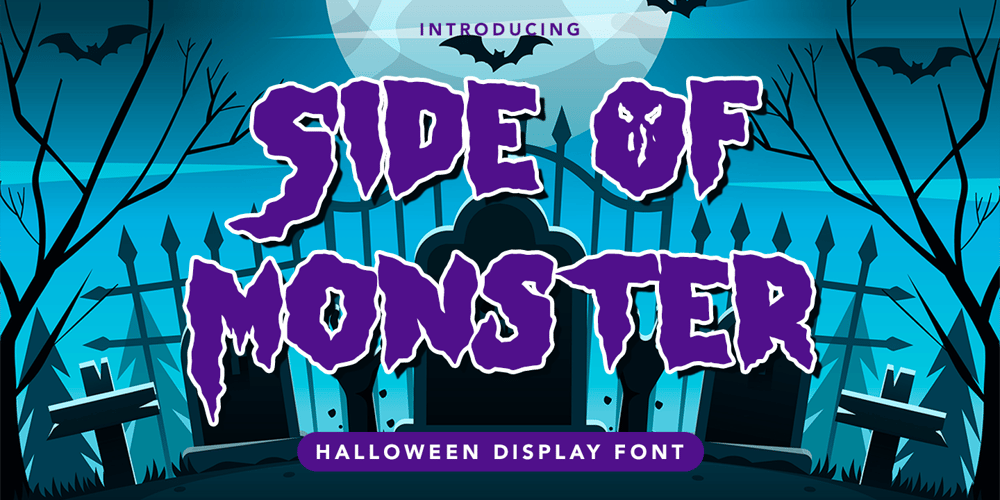
Side Of Monster
Side Of Monster font
Side Of Monster Font Family was designed by Asep Rendi and published by Hatftype. Side Of Monster contains 1 styles and family package options. Side Of Monster – Halloween Display Font is a display font that is inspired by gothic and horror style because its shape is very unique and is perfect for any project that you will use with this theme.Side Of Monster with opentype features such stylistic alternates, stylistic sets & ligatures good for logotype, poster, badge, book cover, tshirt design, packaging and any more.Features :1.Uppercase & Lowercase.2.Multilingual support.3.Number.4.Symbol.5.Punctuation.6.Extra Dingbat.7.Support in Mac and Windows OS -Support in design application (photoshop, illustrator, and more).There it is.I really hope you enjoy it.